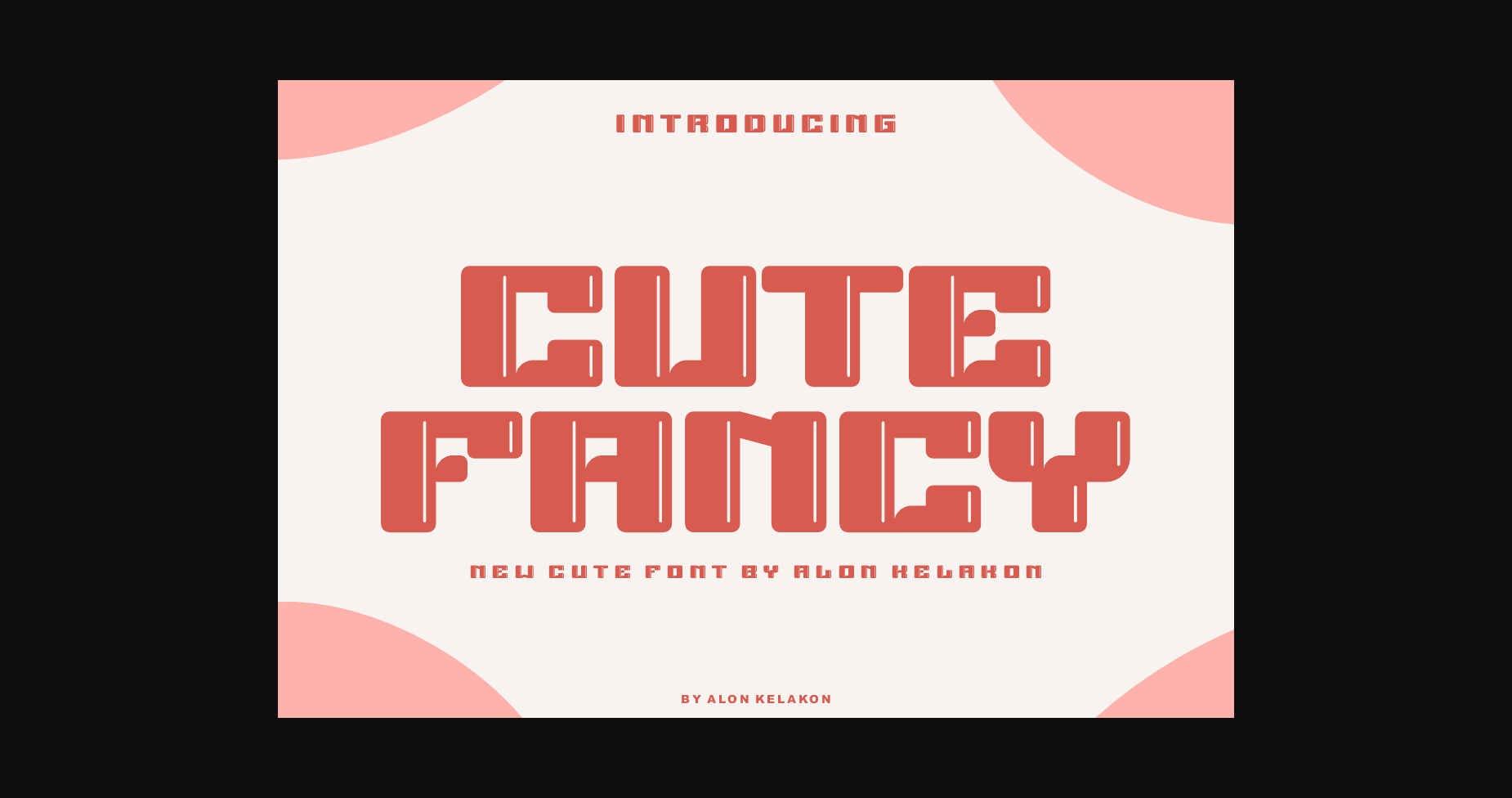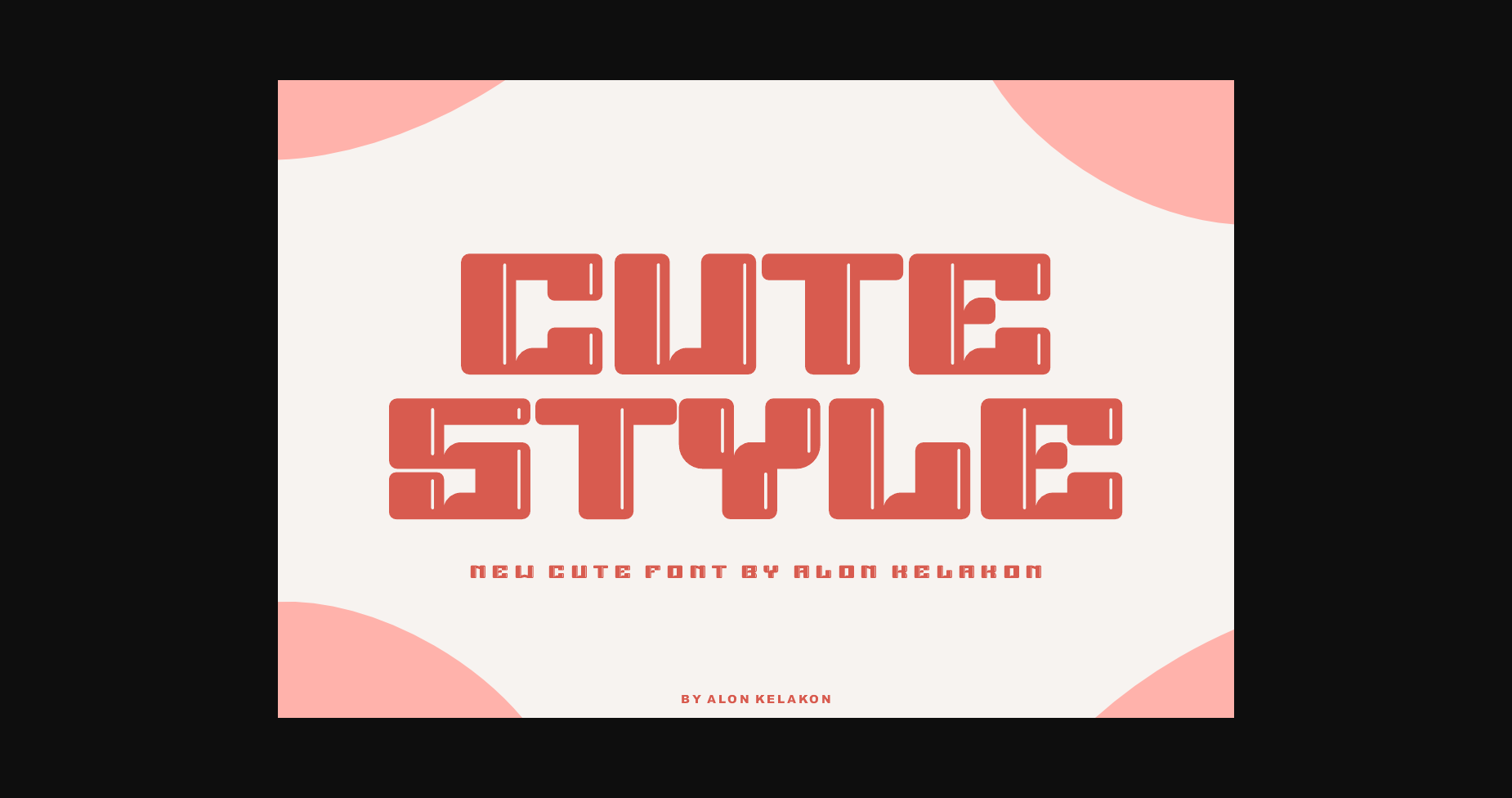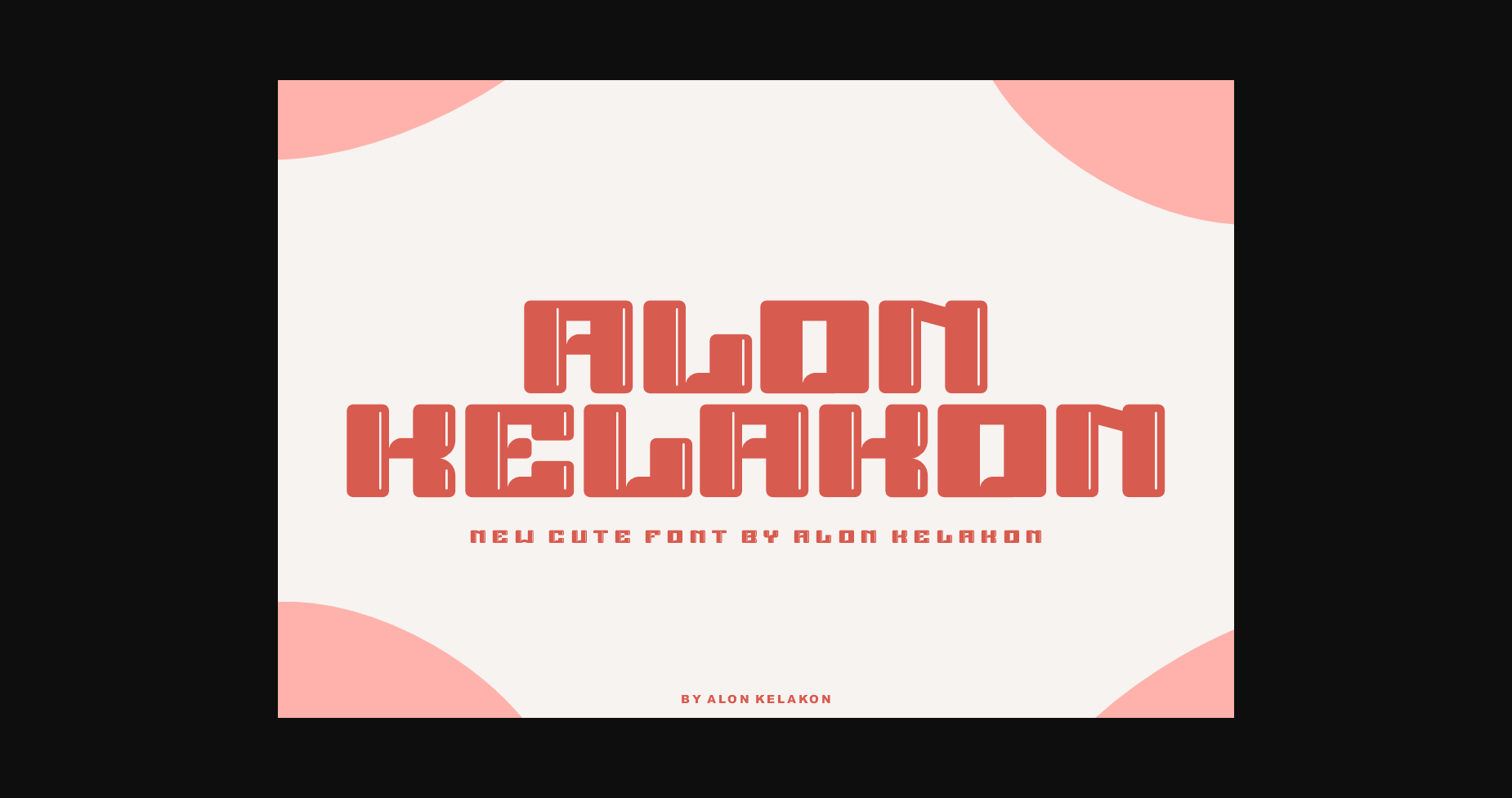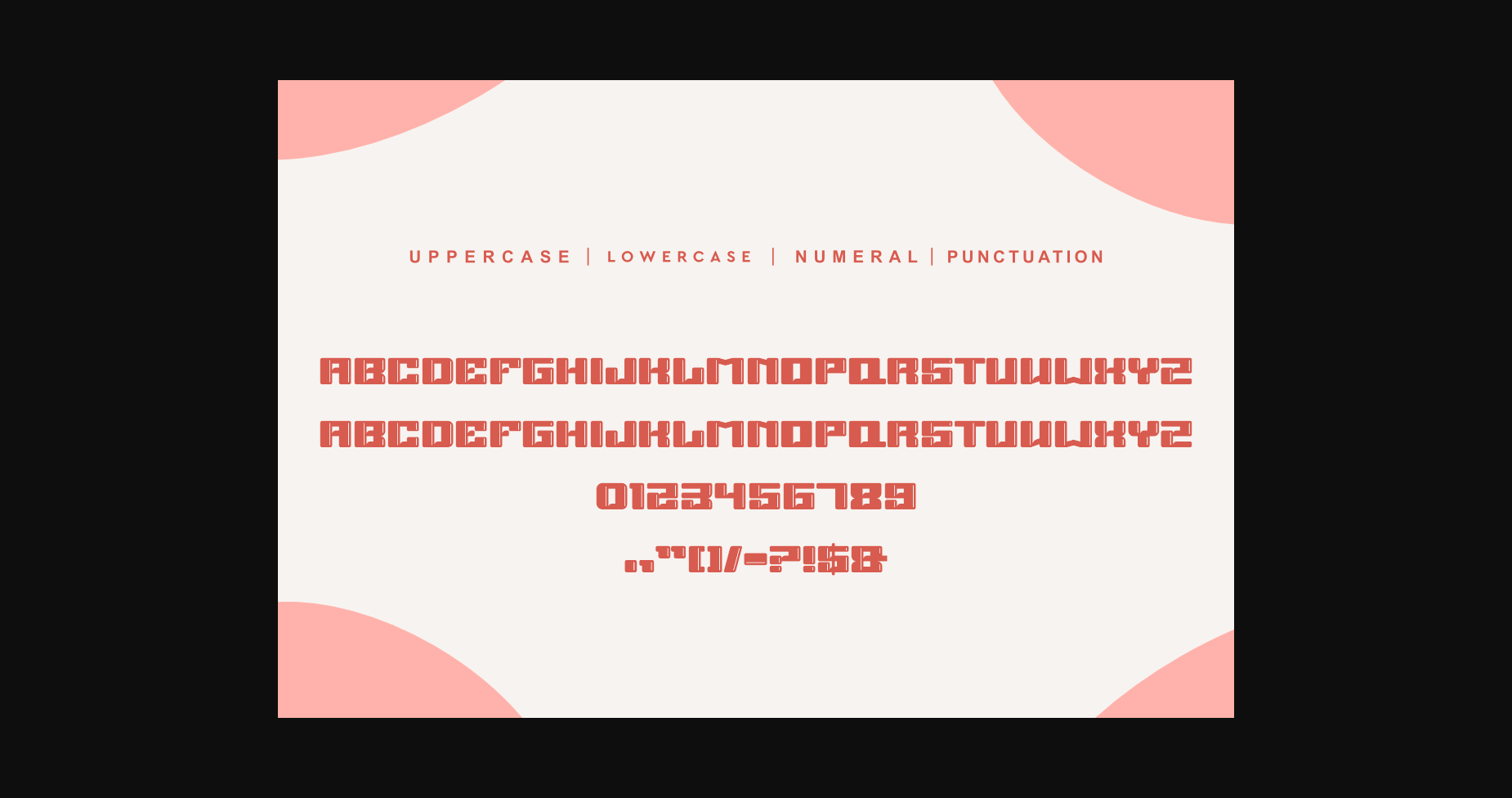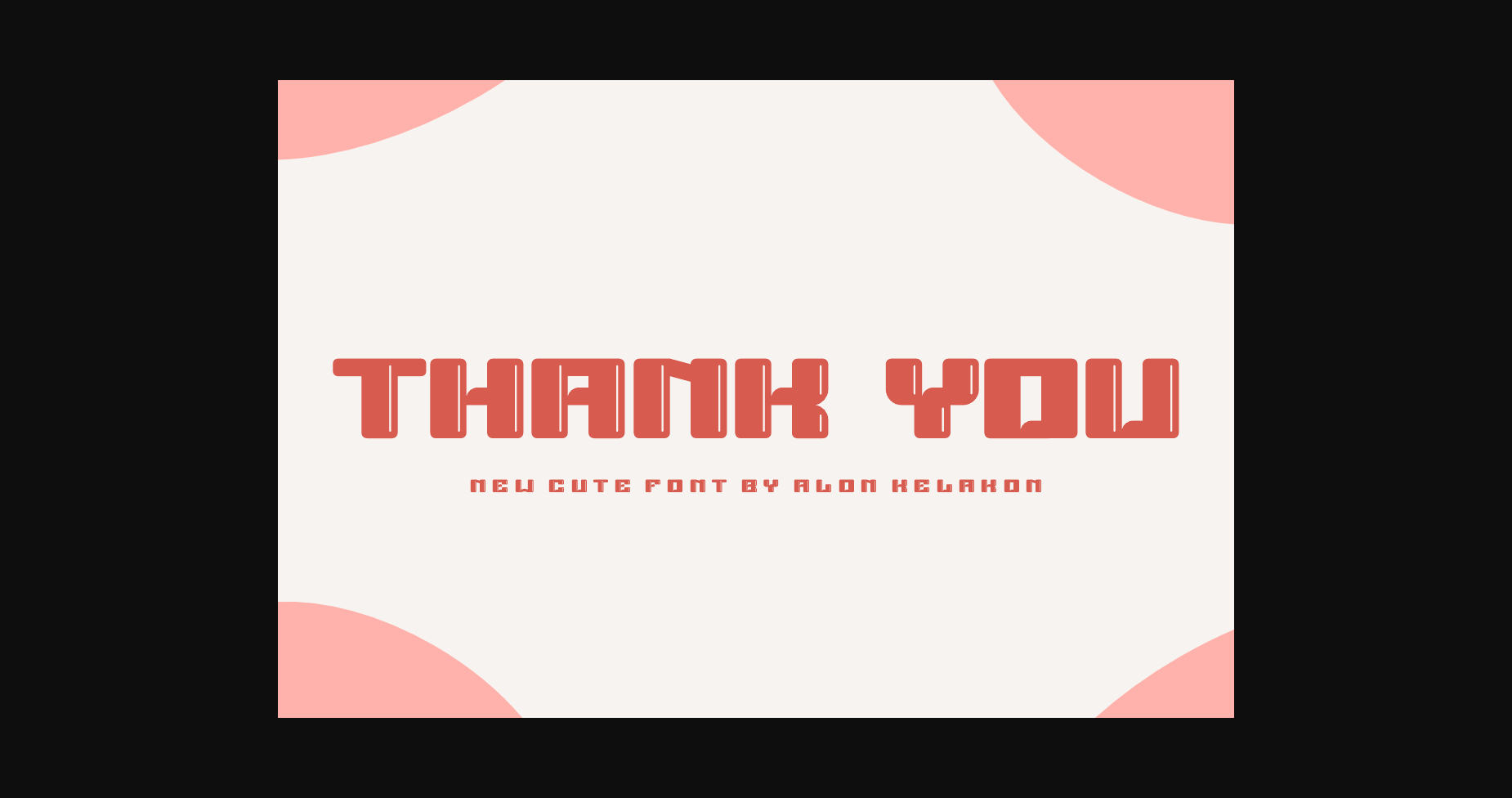
About Cute Fancy Font
Cute Fancy Font is unique. Ready to use for your design like labeling, clothing, movie screen, poster, movie title, gigs, album covers, logos, and much more.